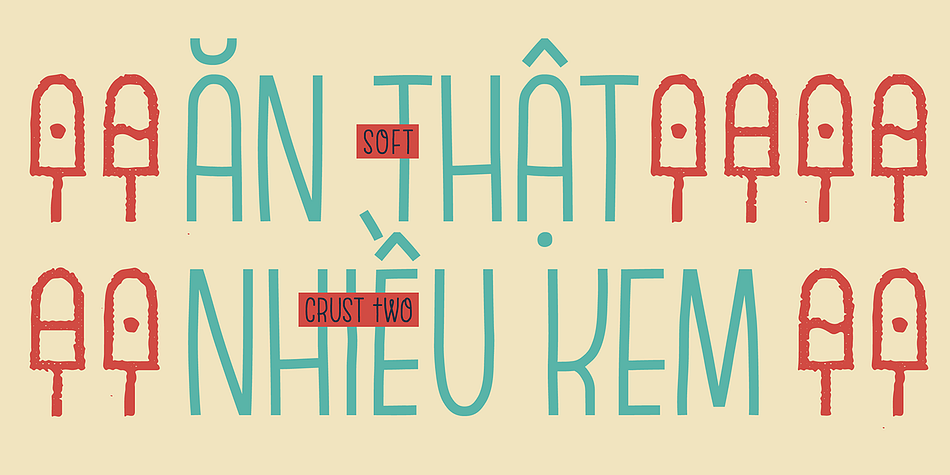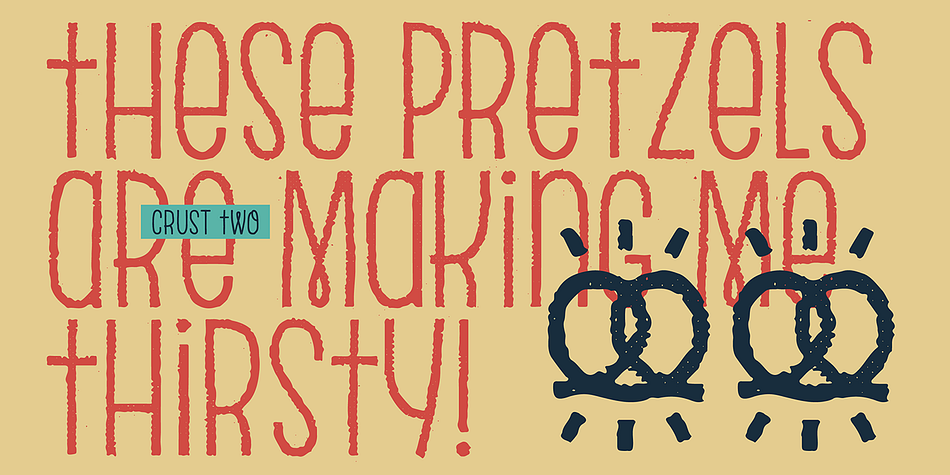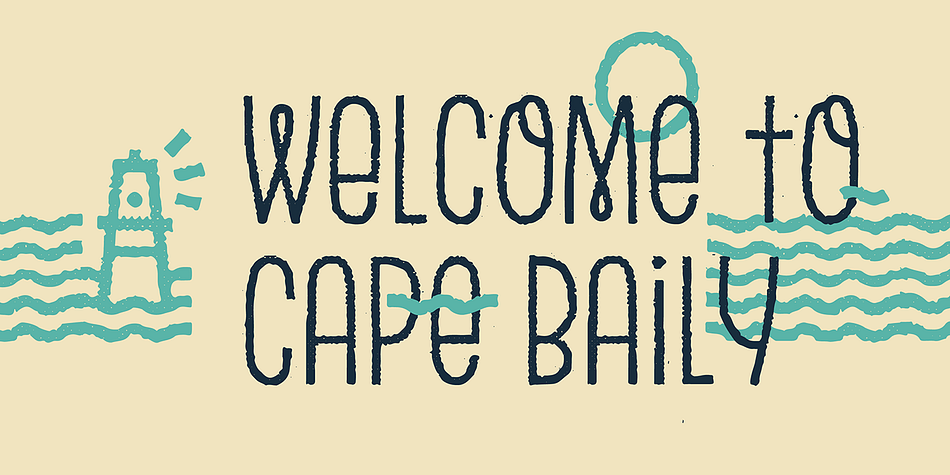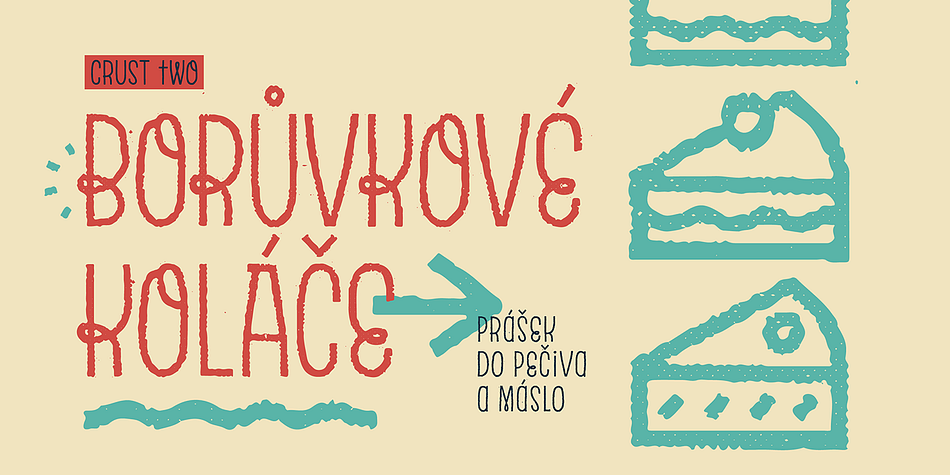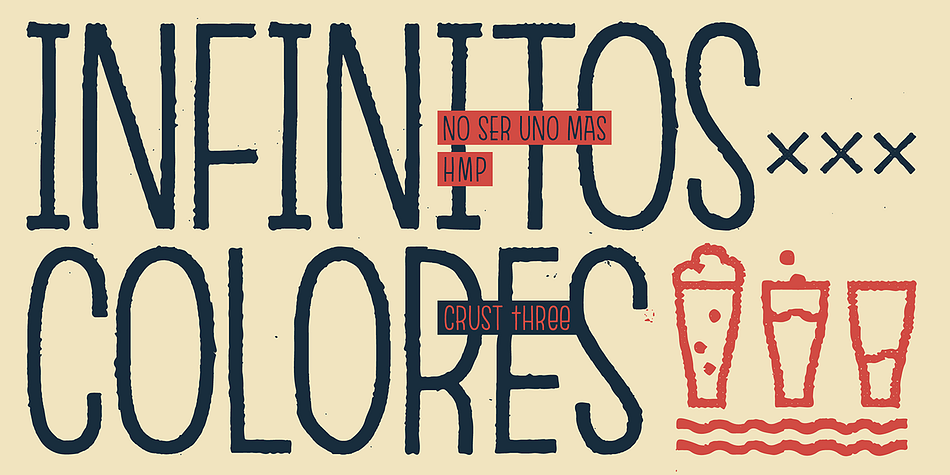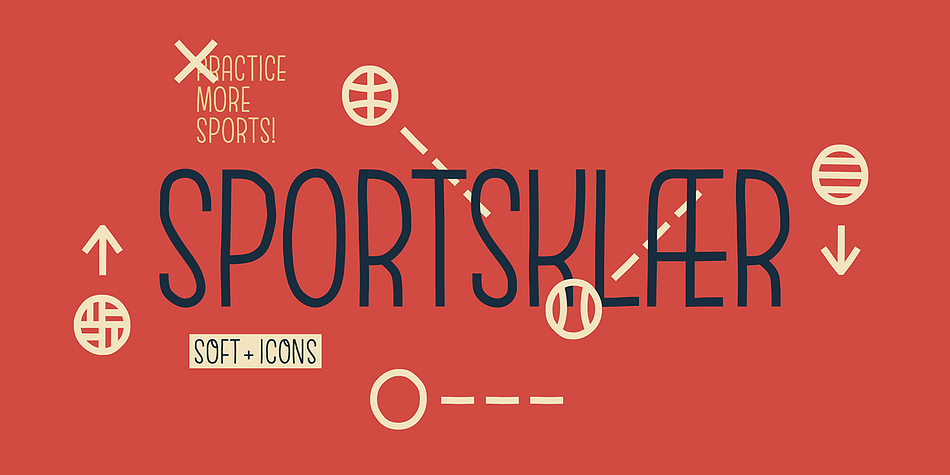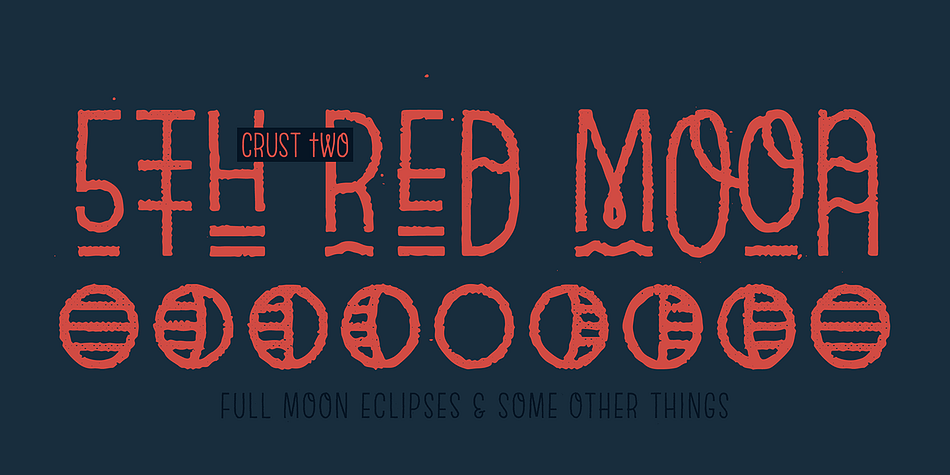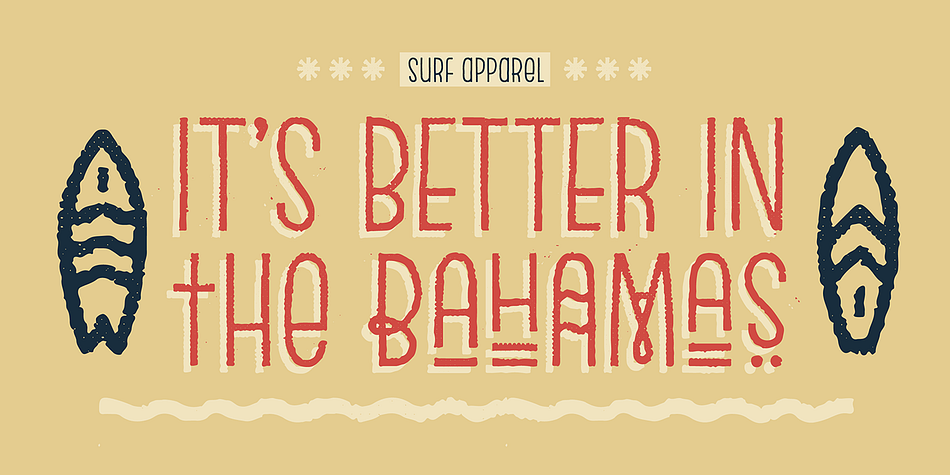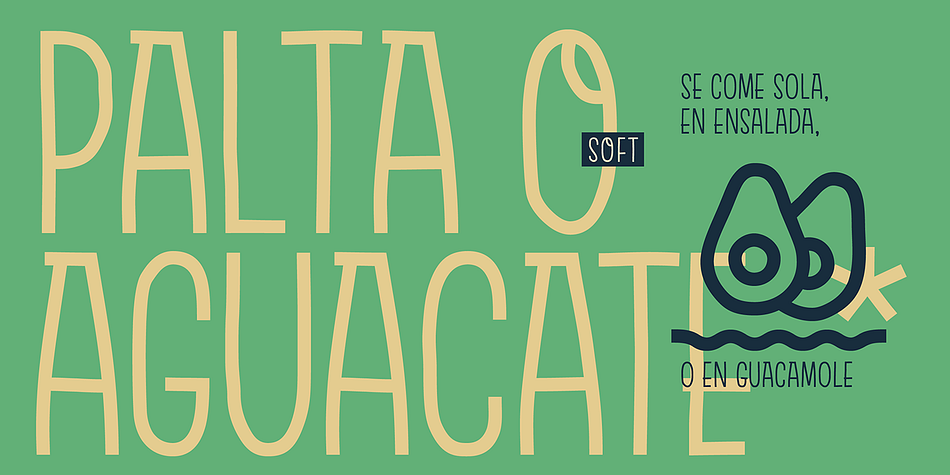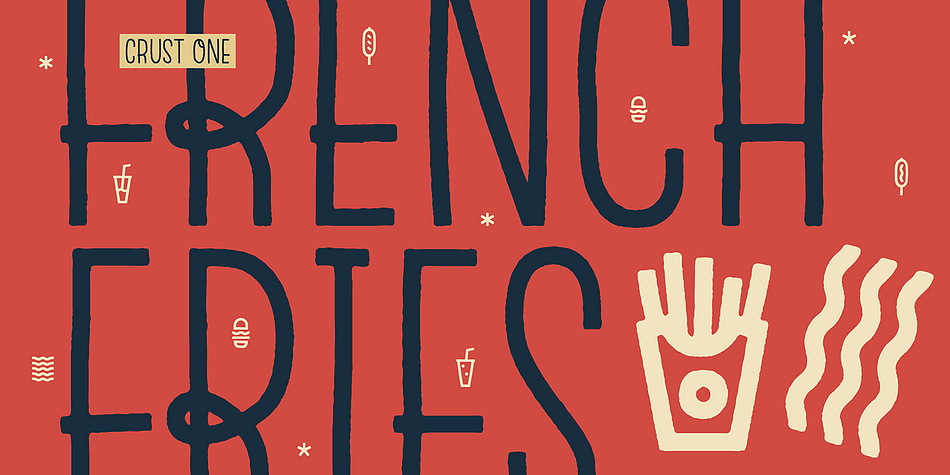
Escalope is a dingbat and hand display font family. This typeface has eight styles and was published by Antipixel.
Escalope is a hand-drawn layered font with a crazy & unique personality: the low midline, the false-AllCaps style, all the fun & playfull Stylistic Sets will give your projects a new and fresh look! There are many Open-Type features within easy reach such as Contextual Alternates, Stylistic Alternates & Sets, Kerning, Fractions and Number Figures. Escalope comes with “A Simple and Very, Veeery Easy Tutorial: Escalope” in PDF, that comes in handy for applying all these features.
Escalope has a set of 150 icons that are available in the three textures offered. They share the weight and font characteristics for a perfect match. Nothing compares to real textures, right? These where designed by Antipixel with actual scanned material.
With more than 1400 glyphs, this font has a very large language support allowing users to write in English, Spanish, Italian, French, Portuguese, German, Polish, Czech, Vietnamese, Finnish, Icelandic & many more! Special characters & currency symbols are also available.